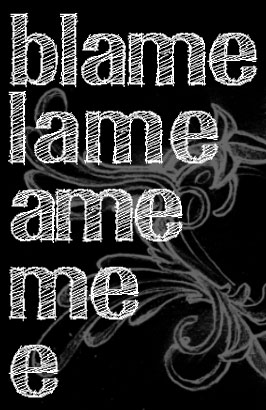
So this is what you have been doing all this time. Well, what can I say but...it's superb! Every single character is gorgeous. Your skill, creativity, and daring grows with each new font. Very admirable. An 11.
excellent.
I must find a new word to replace wow. The "chalk" effect looks magnificent in your reverse example. As thalamic says, 11 out of 10. Surely we need a "font of the year" category.
brilliant!
Kix, that's really impressive. It seems an hand-drawn font in every piece of letter. Wonderful!
Although everyone might not agree about Arial and Times New Roman being the "two most important fonts of all western typefaces", I think we can all agree that you've created something incredible here, Kix. In the words of Tim and Eric, "Great Job!".
i really had fun doing this.
arial and times new roman were indeed very important for me, but i agree with you. i changed that :)
i'll start "drawing" upper case.
OMG KIX! Great Job, Awesome Show! Can't wait to see the rest of it! Outstanding!
Words fail me. This is awesome. Fantastic job!
it's always such a nice contrast seeing someone throwing all the modular typface rules over board compared to all the 1/4 circles and 45 degree lines. it's absolutely fantastic.
WOW! Absolutly georgeus typeface, congratulations... KEEP ON WORKING!!
Incredible work! Good use of the irregularities.
dude, you're #1 with a bullet! congrats.
Jebus. That's a lot of bricks.
Arial, Times New Roman
I agree
When can check this fontstruction with 52 characters (26 lowercase letters and 26 uppercase letters)
ich ab mal 4 jahre design studiert. dann hat mich die studiengebühr da raus gekickt!
seitdem jobbe ich alles mögliche. aber ich wünschte ich bekäme die chance irgendwann mal im bereich typo mein geld zu verdienen...
ich liebe buchstaben schon immer.
Typo in jeder form (graffiti, kalligrafie, posterkunst, streetart oder was auch immer)ist einfach mein ding. kannst aber auch gern mal hier reinschaun. enjoy!
@JH34: wtf? ;P
Comment by kix 1st september 2008
trully a great one, really impressive!!
patrick
Comment by patricknas 2nd september 2008
Wow, this is amazing! Just noticed there's nothing past K in capitals.. =p. Lovely =]
Comment by autonomouse 2nd september 2008
awesome!
Comment by Raketentim 3rd september 2008
Thanks again.
I finished the work on Upper and lower case plus ".".
i actually wanted to add some more symbols and maybe numerals, but it's already TOO big in size. i had several errors downloading this, when it had more characters in it. so i had to erase some glyphs...
the actual size of this is 56,5kb... in comparison geneus1's Arkham Bloodletters is 64,4kb big and it was no problem to download...
i don't get it :P
cheers kix
Comment by kix 4th september 2008
Rob Meek might correct me, but I believe it is not so much the file size but the number of bricks that affects the Font Mortar's ability to generate a font.
Comment by Stephen Coles (Stewf) 4th september 2008
Astounding, kix. :-D
In regards to file sizes, the Bloodletters font is puny in comparison to ariapenciroman. It's file size is only large because of the complexity of translating intersecting curves and circles into their mathematical equivalents. If ariapenciroman used circles, it would easily be over 100KB.
The Bloodletters gridspace is about 25x15 which covers an area of about 375 bricks per glyph. The ariapenciroman gridspace is about 75x50, which covers an area of about 3,750 bricks! Quite possibly one of the largest fontstructions ever! Whew! I guess we'll have to trust in Rob to expand the Font Generator's brick array once again.
Comment by nadaeyup 20th april 2020
@kix (comment from 13 march 2009)
from what font is that feather? i know its weird to ask this 13 years after
Comment by anonymous-2100581 1st may 2023
hoy
Comment by shemar 26th september 2023
I notices there is no "c" in that picture with lots of letters in different fonts.
15/10 on the font.
Comment by davilarichard683 23rd february 2025
this is amazing!! O_0
Comment by sonicfan2005 1st february 2026